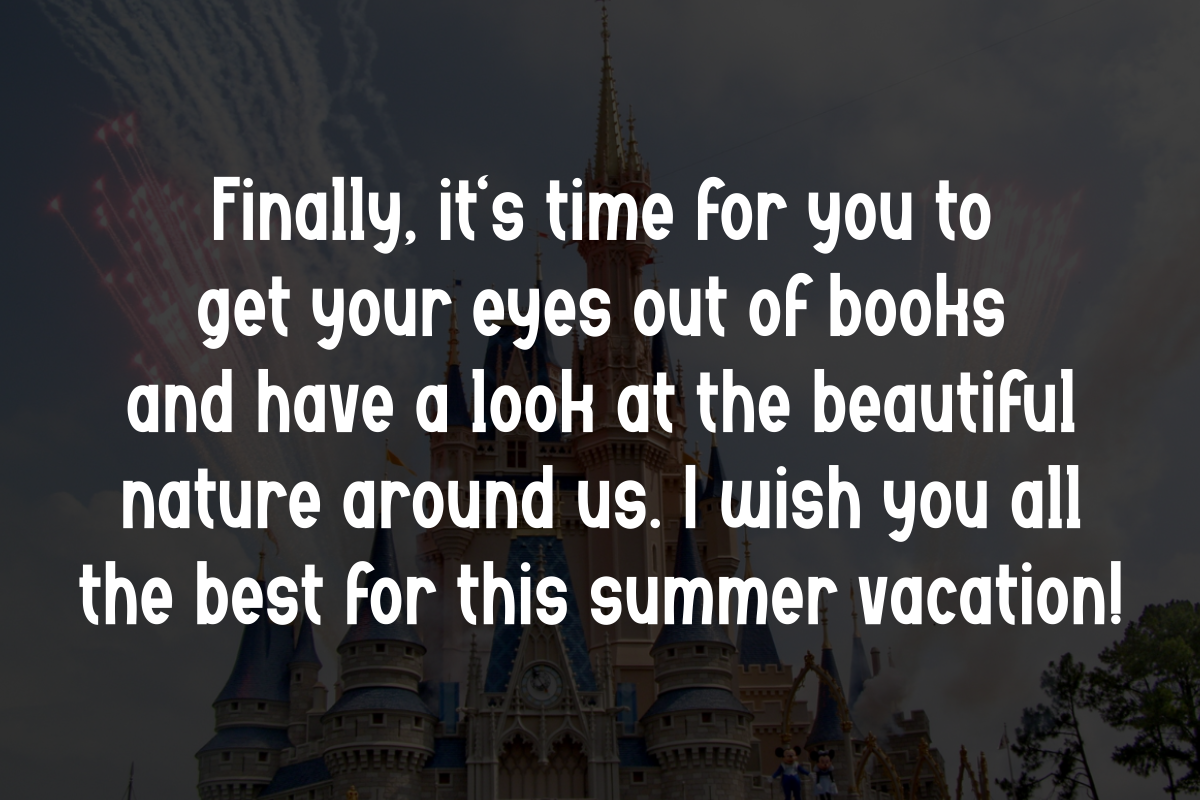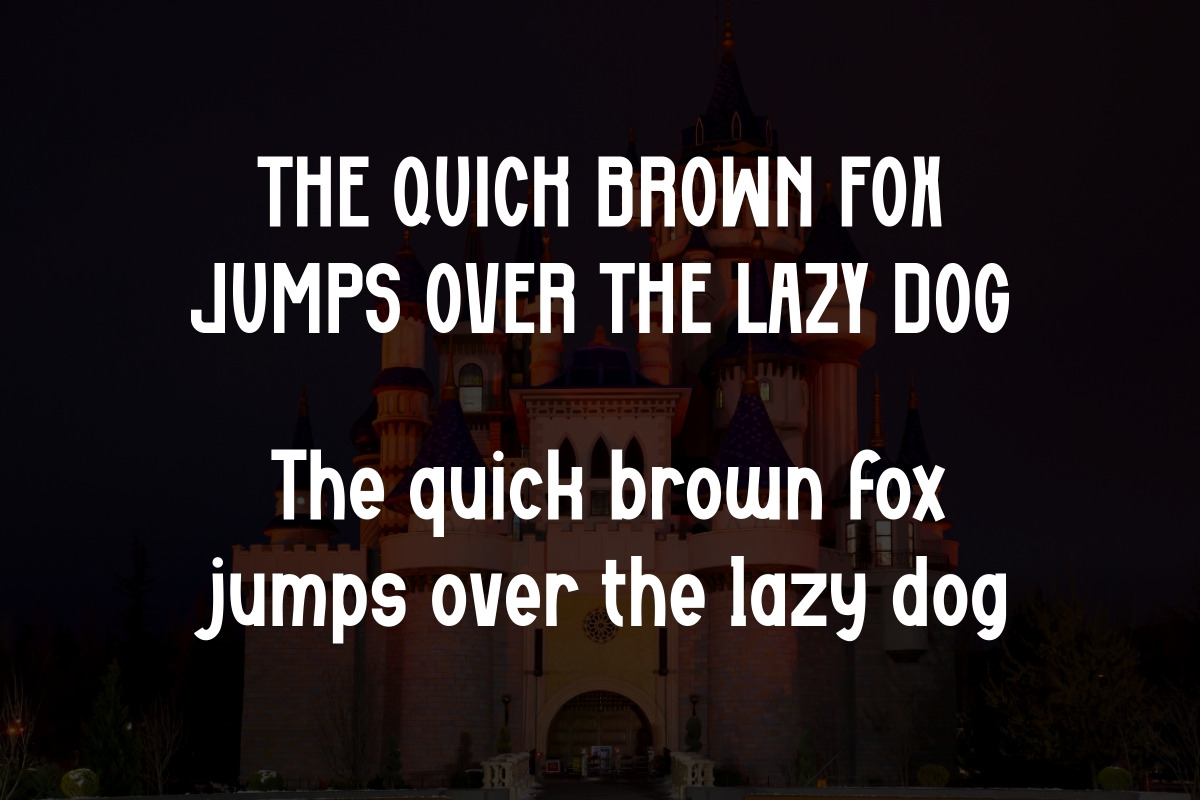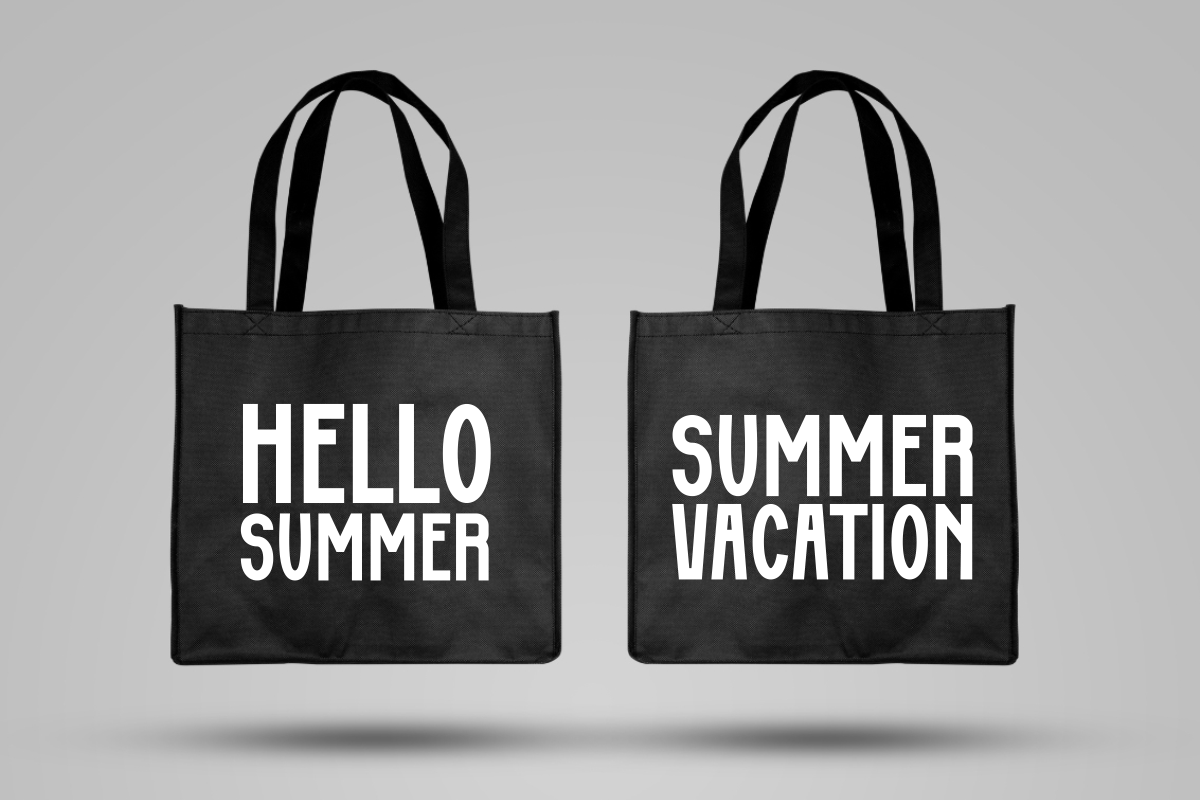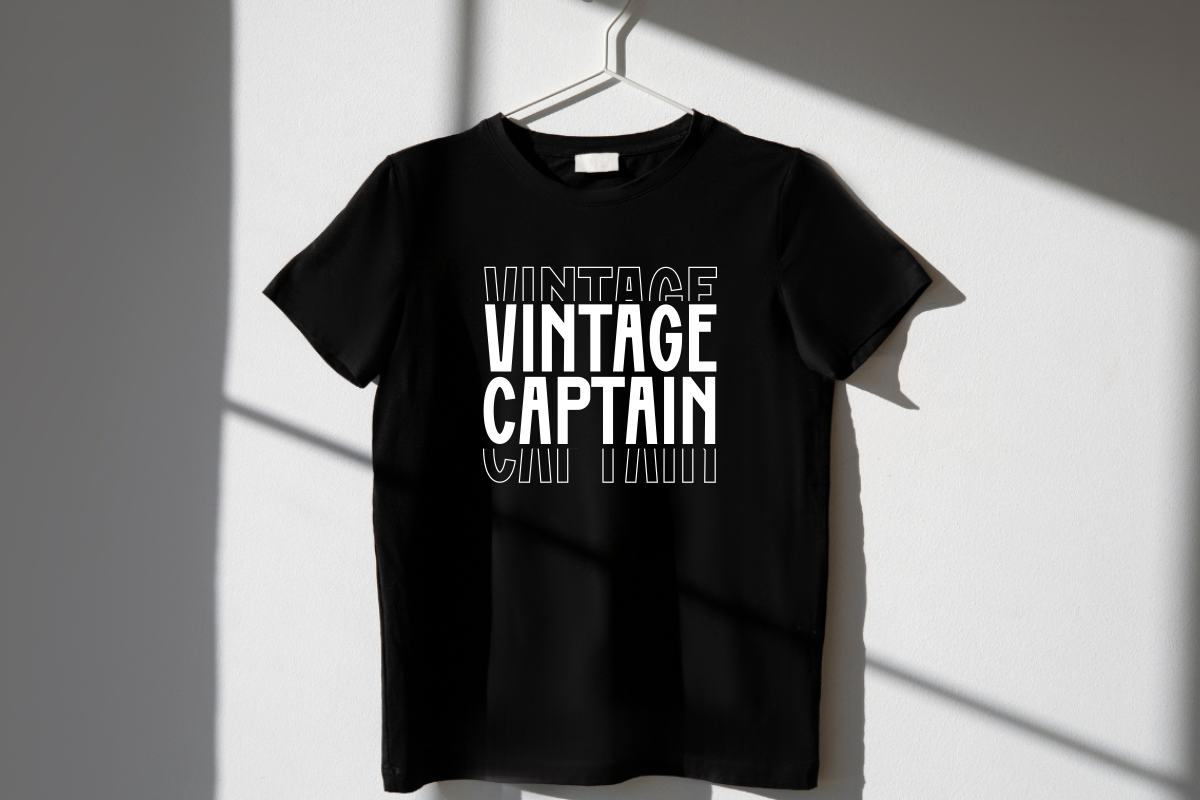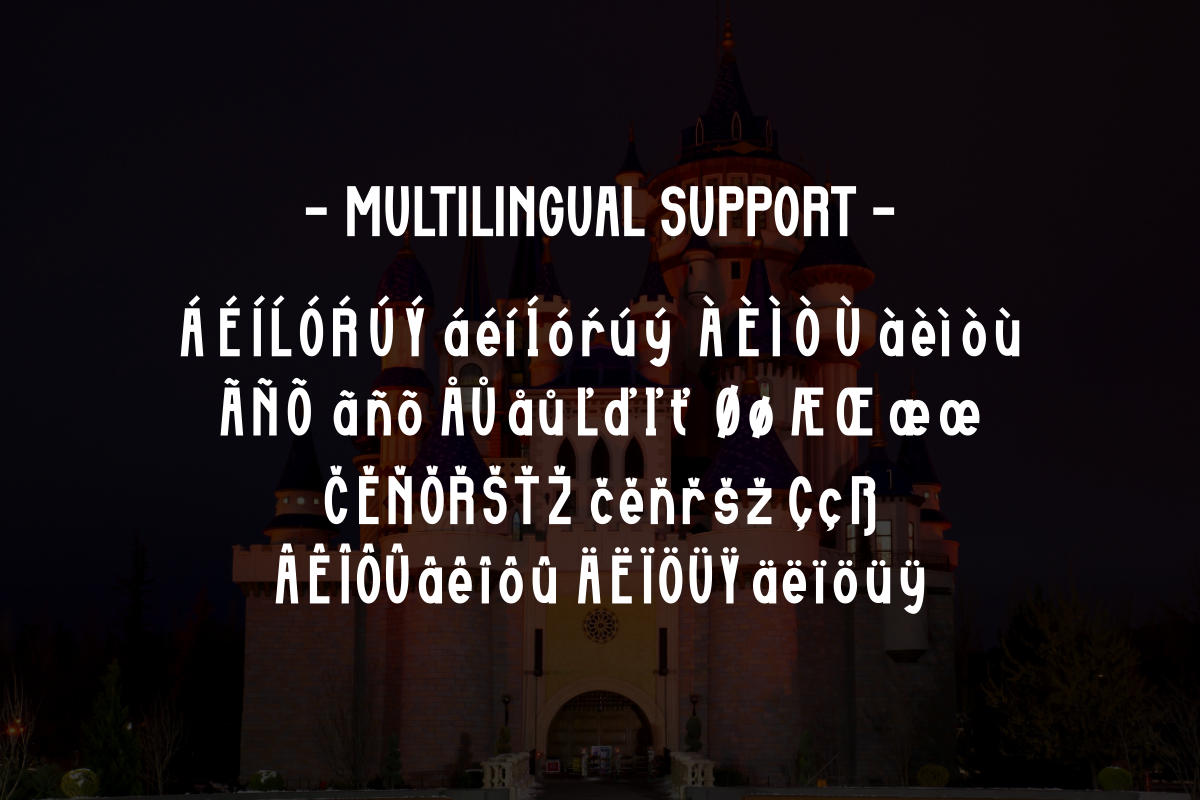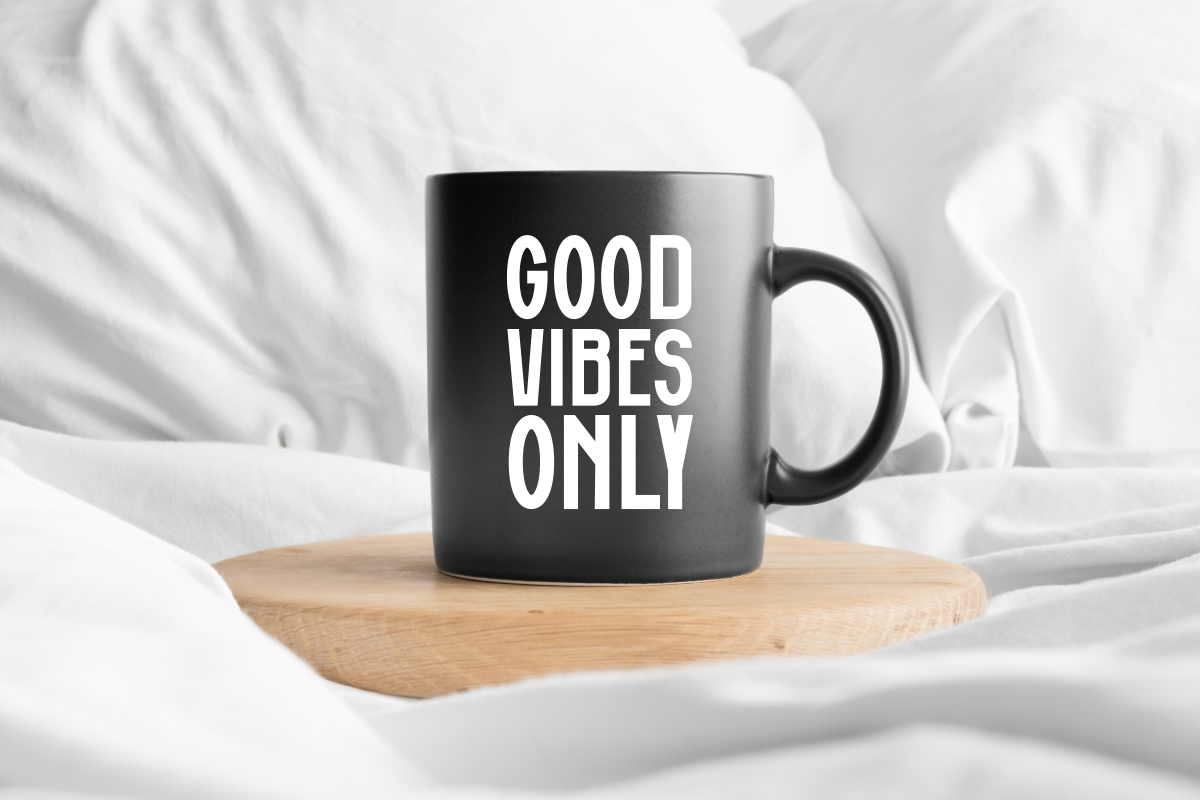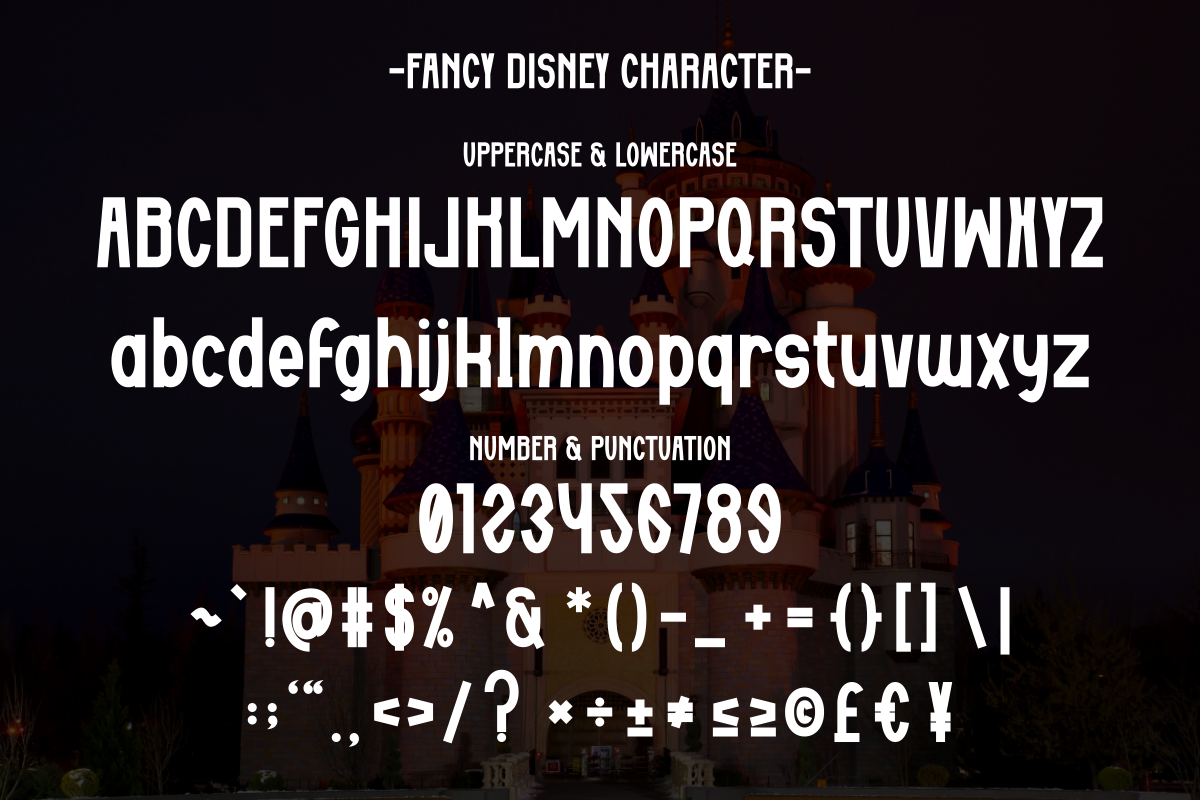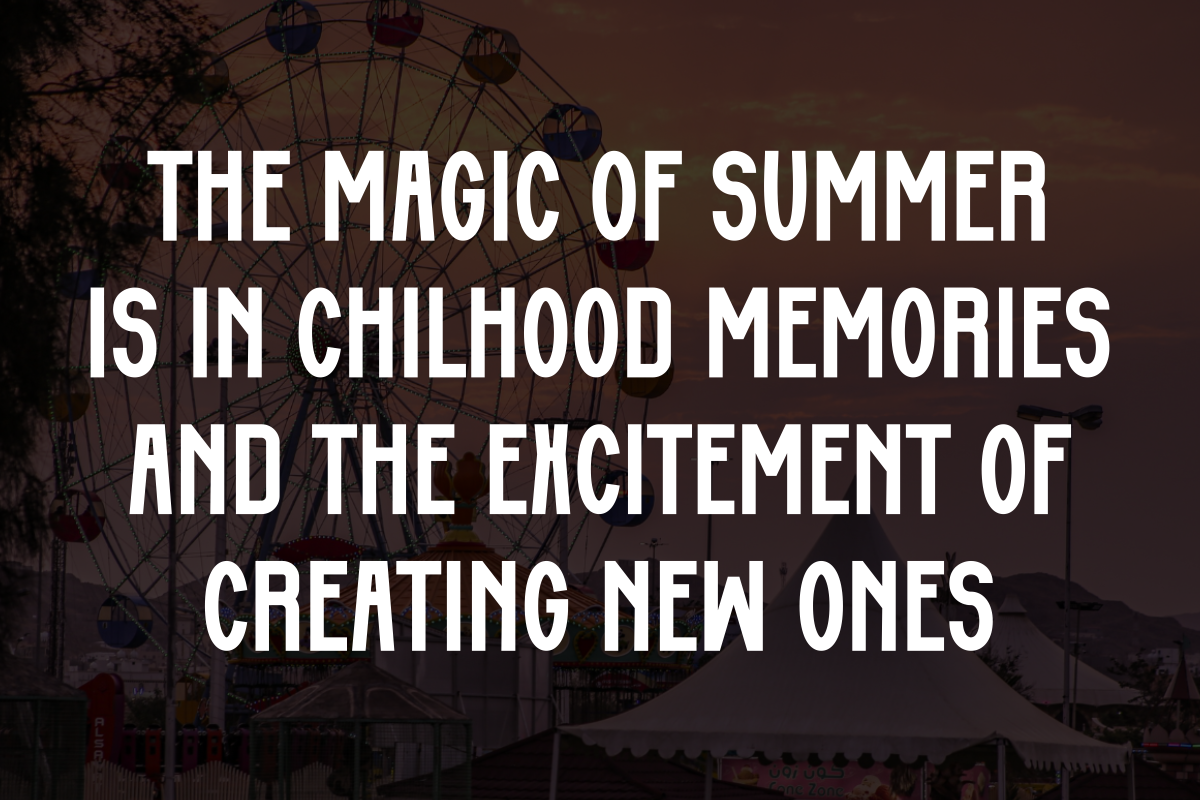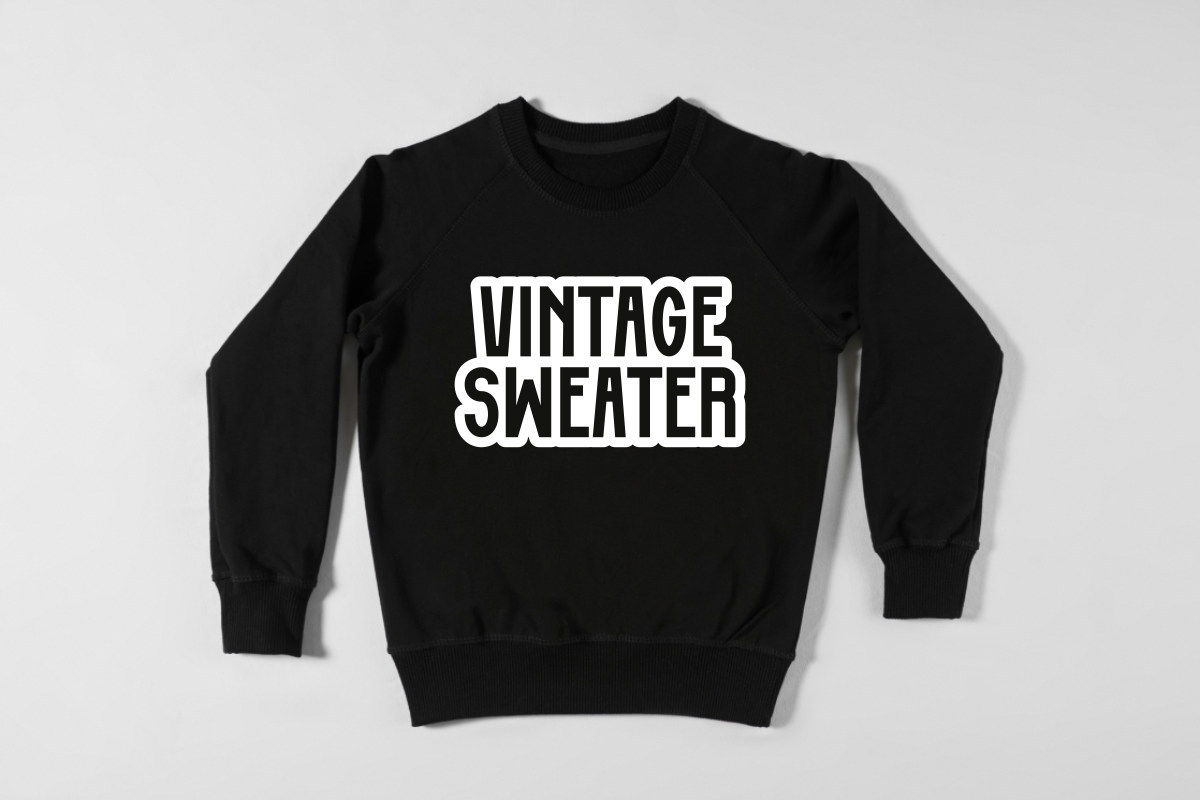
Fancy Disney - Vintage Sans Serif
Fancy Disney is a unique and elegant vintage sans serif typeface with a clean and bold style, perfect for capturing the essence of summer holidays. This font adds a touch of classic elegance to your creative projects. Perfect for quotes, posters, movie titles, apparel design, t-shirts, mugs, tote bags and greeting cards.